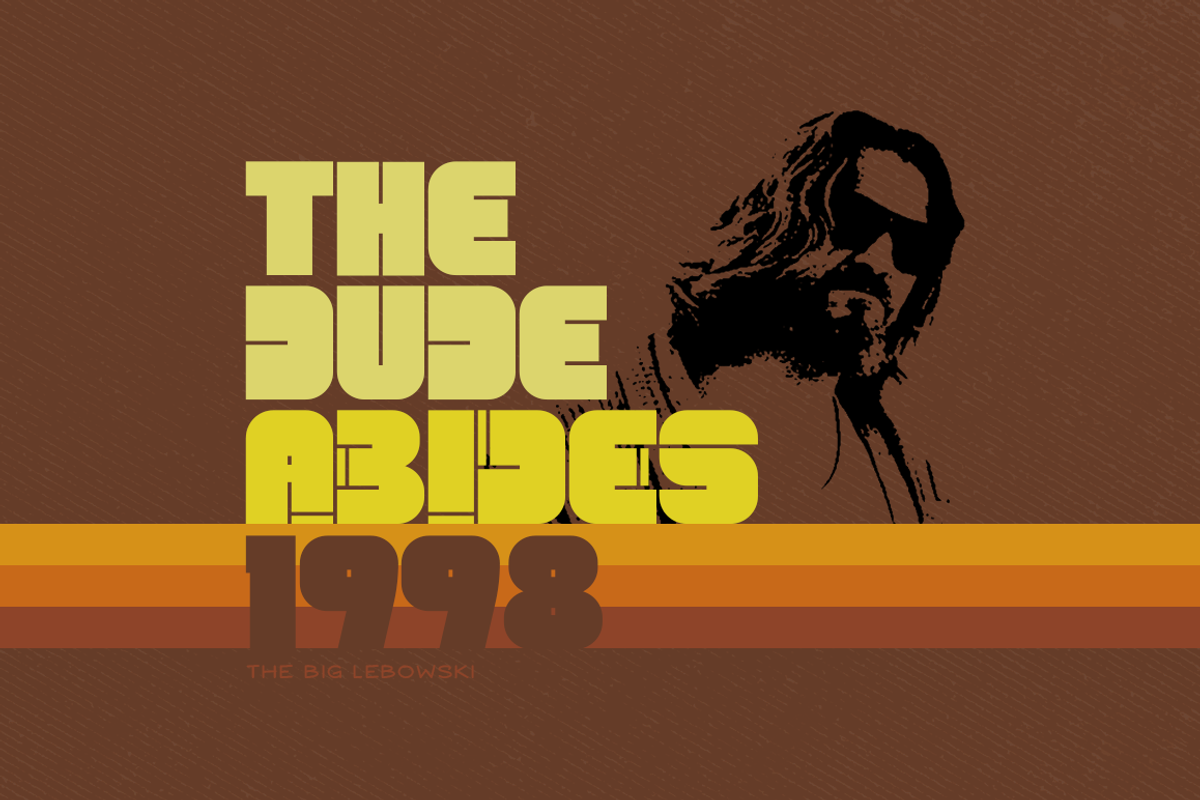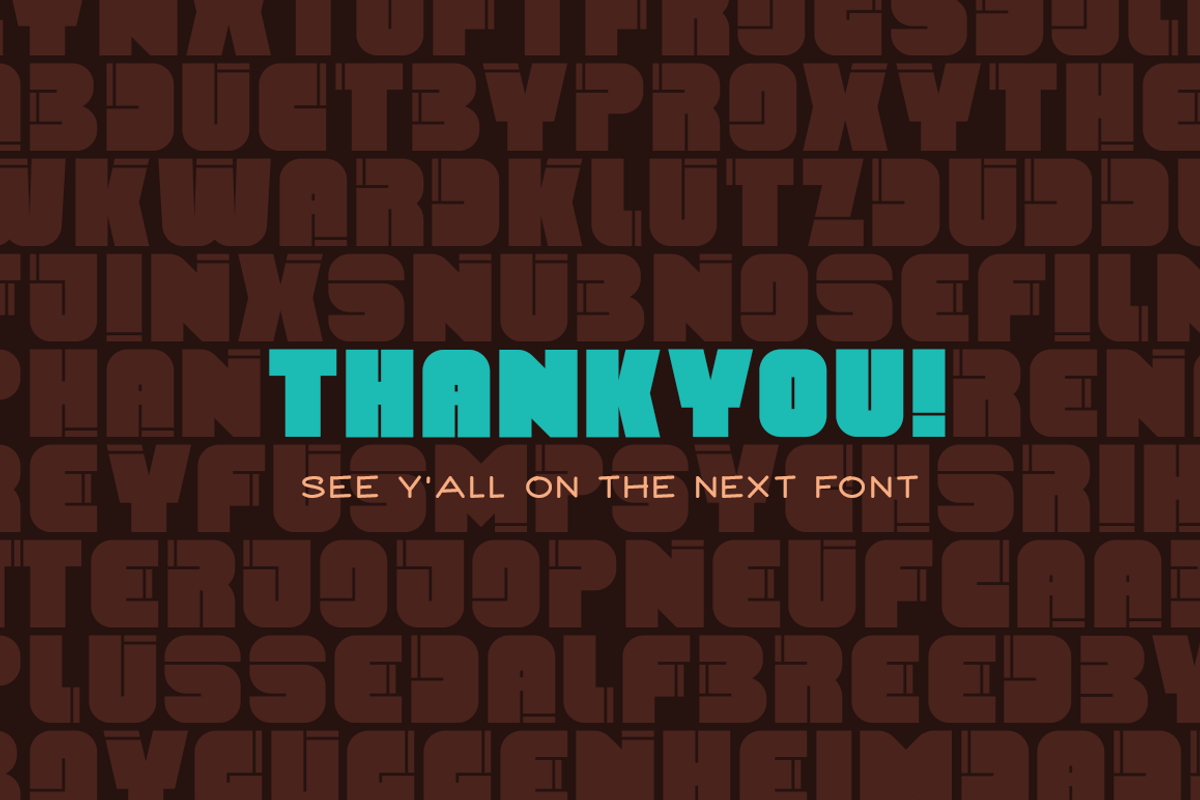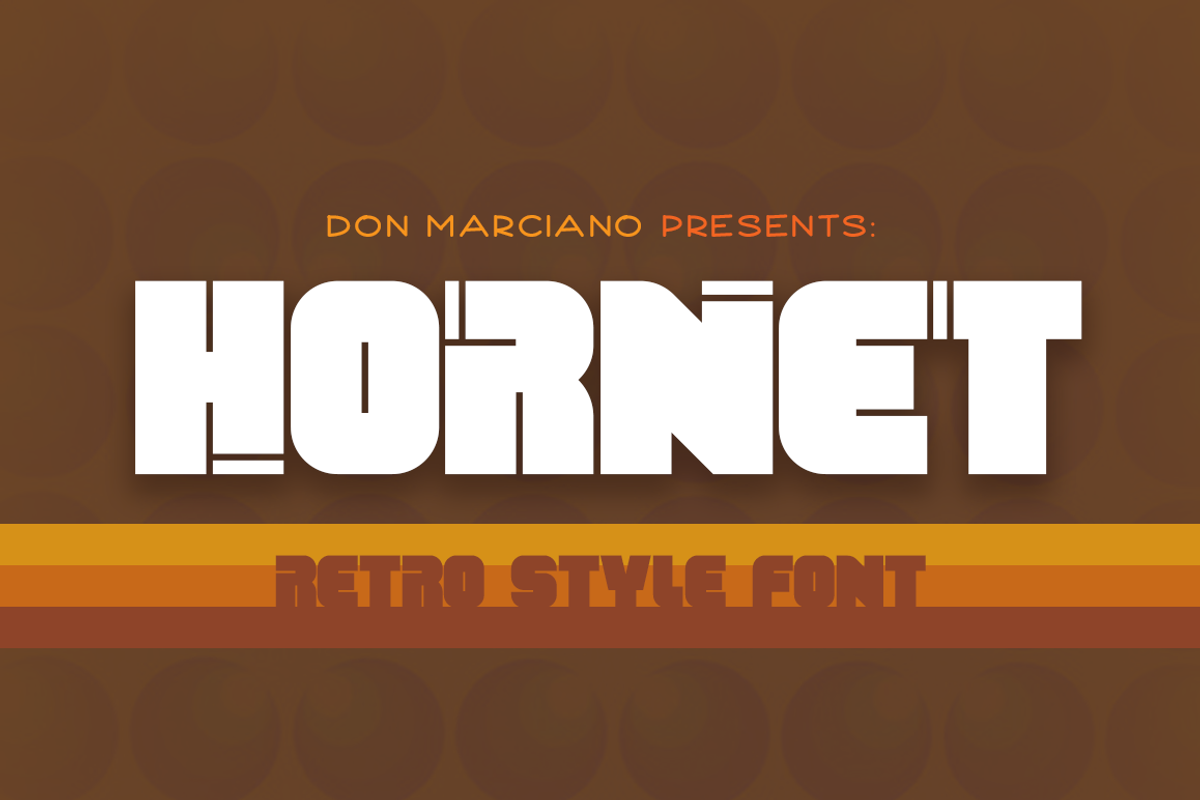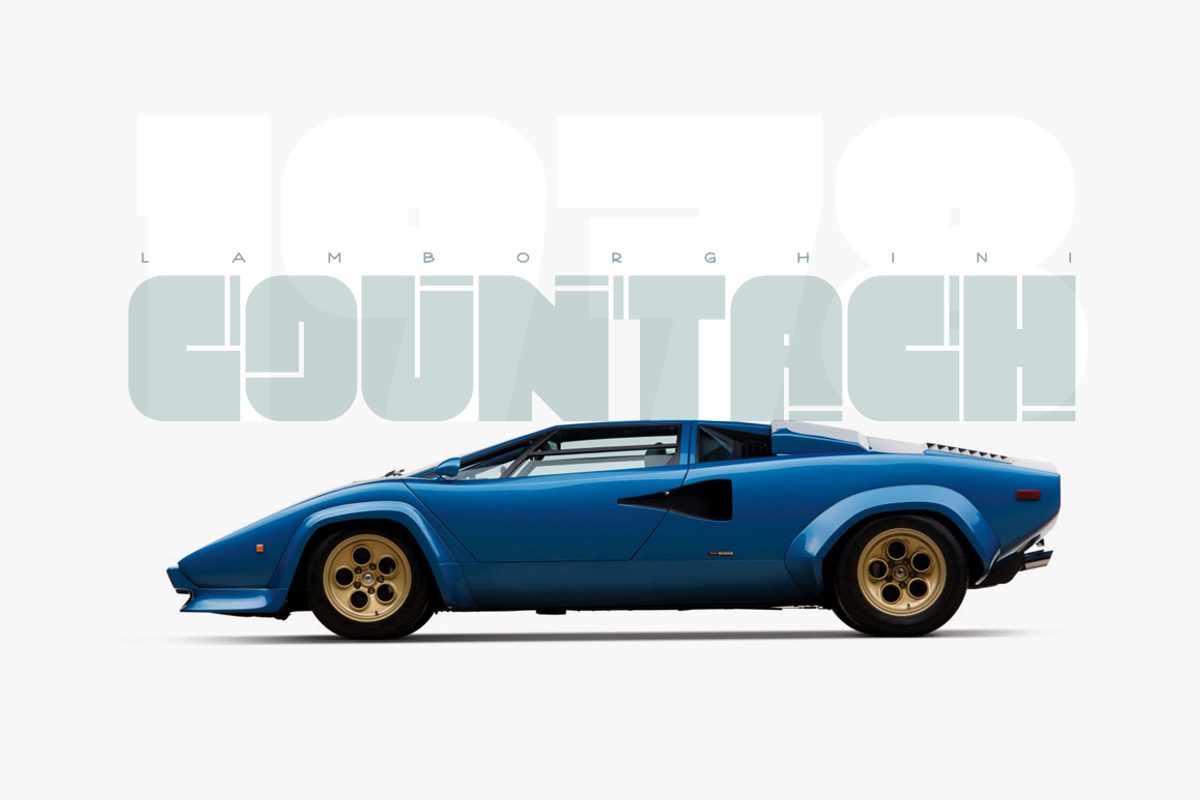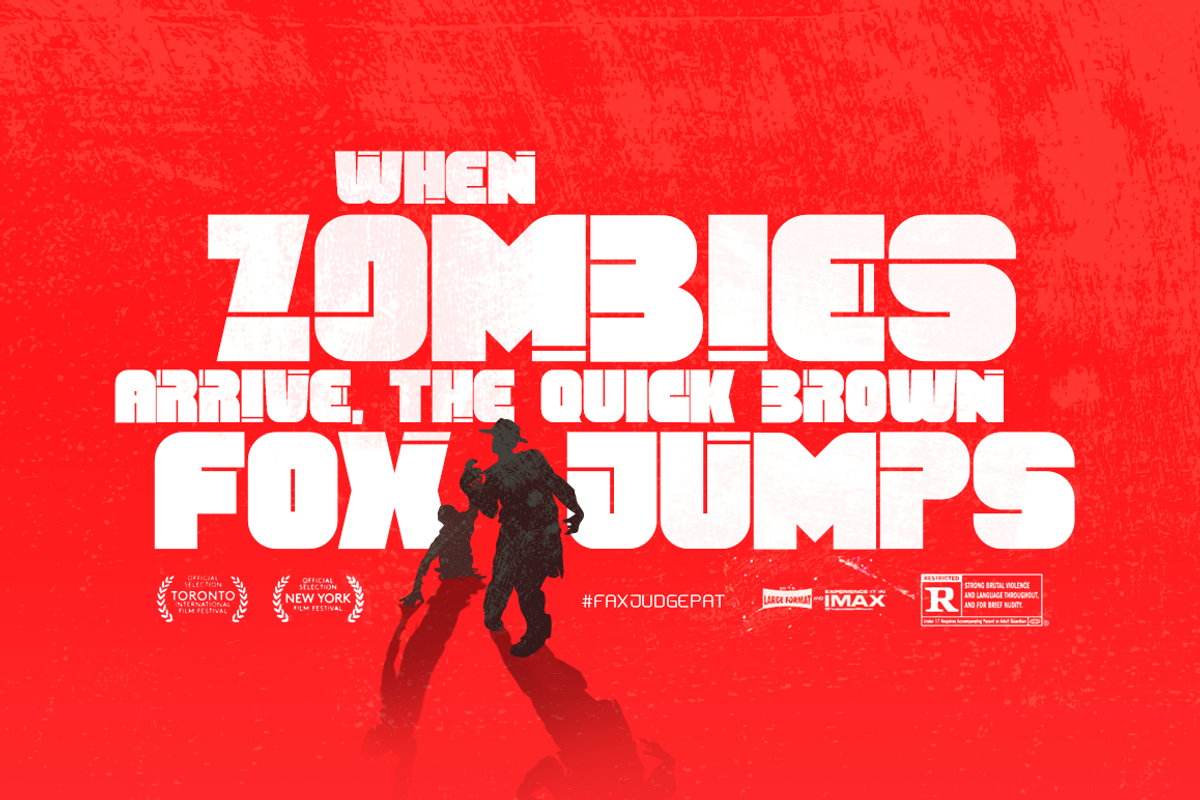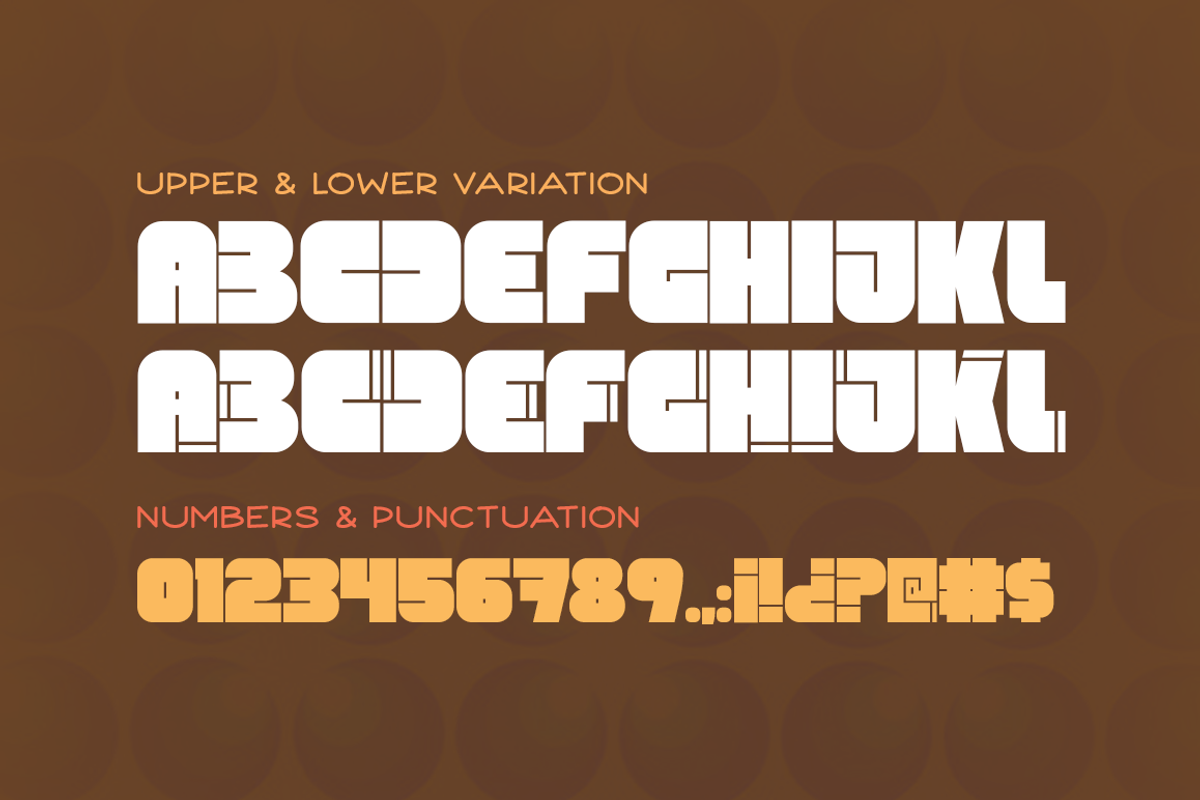
Hornet - Retro Style Font
Hornet is a retro style font inspired by the design vibe of the 70's and 80's, created for a series of throwback posters to be use as an ambient fill props, design with the sole purpose to help achieve the look and feel of the era. It’s time to go back in time, when big hair, shoulder pads and neon color lycra were the norm, rises from between the smoke of a lonely street at night, a roller derby ready font.